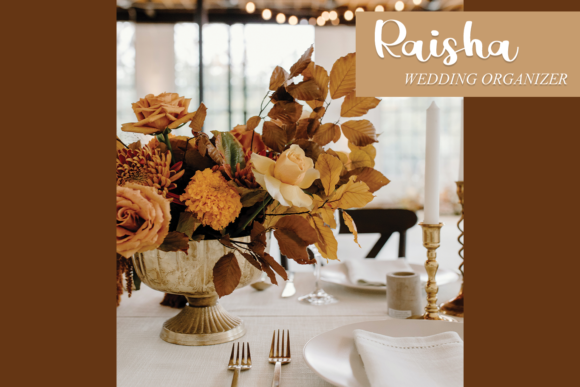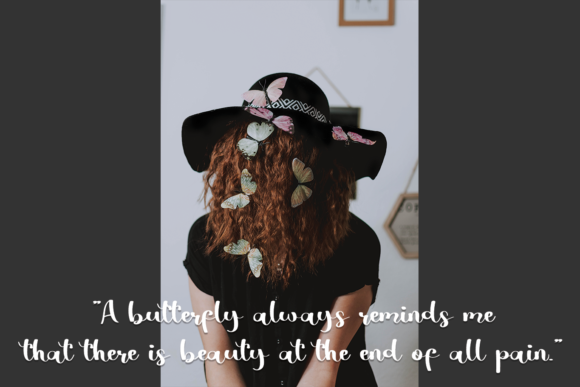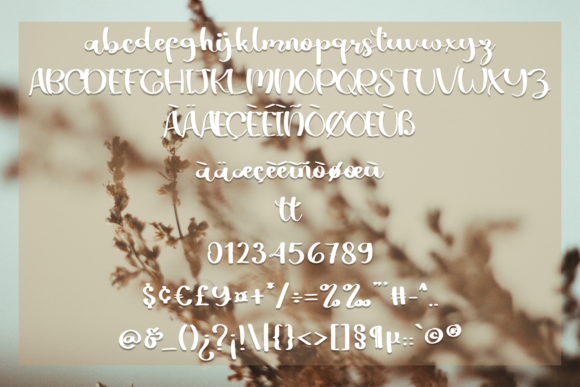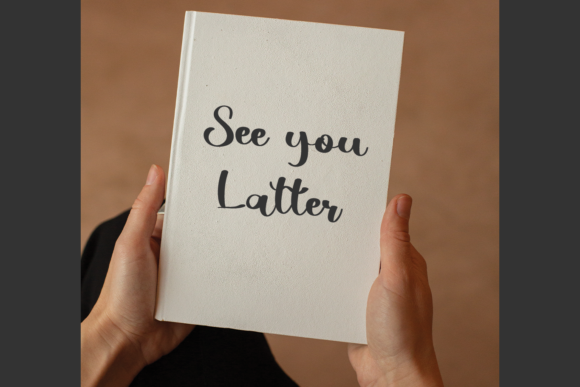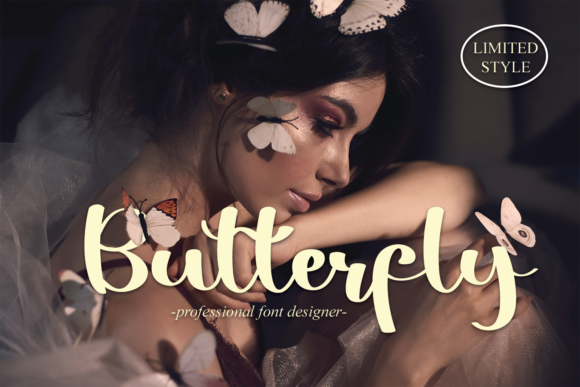
Introducing Butterfly Font: Elevate Your Designs with Elegance and Sophistication
Are you a designer or crafter looking for a font that exudes class, elegance, and modernity? Look no further than Butterfly Font! This stunning script font is perfect for creating beautiful and refined designs that will leave a lasting impression. With its sophisticated and luxurious feel, Butterfly Font is ideal for a wide range of applications, from logos and branding to invitations, stationery, wedding designs, social media posts, and more.
The Beauty of Butterfly Font
Butterfly Font is a masterclass in typography, with delicate and flowing lines that evoke the gentle curves of a butterfly’s wings. Its elegant and refined appearance makes it perfect for designs that require a touch of sophistication and glamour. Whether you’re creating a logo, invitation, or social media post, Butterfly Font is sure to add a level of refinement and poise that will elevate your design to new heights.
What Makes Butterfly Font So Versatile?
One of the things that sets Butterfly Font apart is its incredible versatility. Its modern and elegant design makes it suitable for a wide range of applications, including:
- Invitations and Stationery: Add a touch of elegance to your invitations, business cards, and letterheads.
- Wedding Designs: Make your wedding stationery, invitations, and decorations truly unforgettable with Butterfly Font.
- Social Media Posts: Elevate your social media presence with beautiful and engaging posts that showcase your brand’s personality.
Why Choose Butterfly Font?
With so many fonts to choose from, why should you choose Butterfly Font? Here are just a few reasons:
- Unique and Eye-Catching: Butterfly Font is a one-of-a-kind font that will set your designs apart from the crowd.
- Elegant and Refined: Its sophisticated design makes it perfect for designs that require a level of luxury and glamour.
- Modern and Fresh: Butterfly Font has a modern and fresh feel that will keep your designs looking current and on-trend.
- Easy to Read: Despite its elegant and refined design, Butterfly Font is easy to read and understand, making it perfect for body text and headlines.
Tips for Using Butterfly Font
To get the most out of Butterfly Font, here are a few tips to keep in mind:
- Use it Sparingly: While Butterfly Font is beautiful, it can be overwhelming if used too much. Use it sparingly to add a touch of elegance to your designs.
- Pair it with Other Fonts: Experiment with pairing Butterfly Font with other fonts to create a unique and eye-catching design.